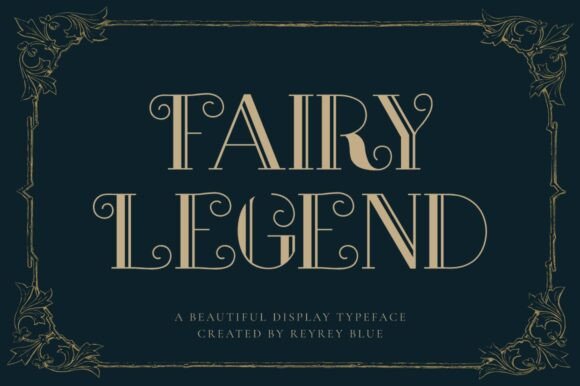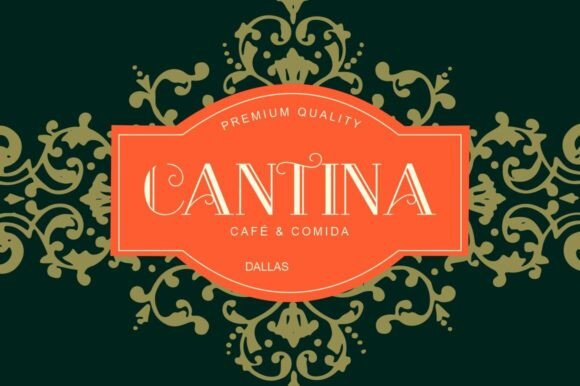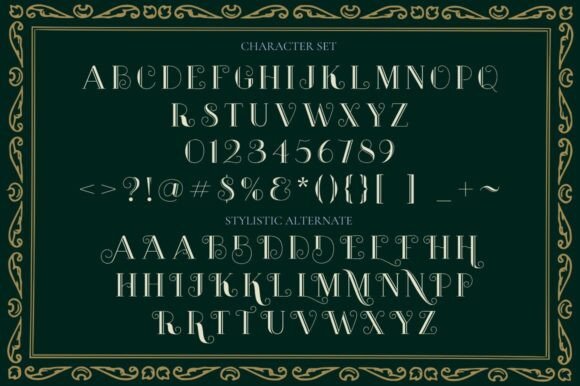
Step into the Magic of Fairy Legend Font
Have you ever sat in front of a blank canvas, struggling to find the perfect font to bring your creative vision to life? The blank page can be daunting, but what if you had a font that could transport you to a bygone era of glamour and sophistication? Welcome to Fairy Legend Font, a stunning retro font designed in the Art Deco style that’s sure to capture the essence of your project.
This enchanting font is inspired by the typography of the 1920s, and its unique charm makes it perfect for designers looking to add a touch of elegance to their work. Whether you’re creating a logo, headline, or invitation, Fairy Legend Font is sure to make your digital images stand out from the crowd.
Fairy Legend Font Key Features
- Unique Characteristics: The Fairy Legend Font features intricate, hand-drawn illustrations and ornate details, adding a touch of whimsy and fantasy to any design.
- Kerning and Ligatures: The font includes advanced kerning and ligature pairs, ensuring smooth and harmonious typography even in complex text layouts.
Fairy Legend Font Review
✨ I must say, I’m really impressed with the whimsical and dreamy quality of Fairy Legend Font. The delicate lines and subtle flourishes evoke a sense of enchantment and wonder, making it perfect for fantasy and fairy tale-inspired projects. The font is well-suited for children’s books, greeting cards, and other materials that require a touch of magic.
✨ Another thing I appreciate is the font’s versatility. It comes in a range of weights and styles, from light and airy to bold and dramatic, allowing designers to choose the perfect look for their project. The font also includes a range of swashes and alternates, adding an extra layer of personality and charm.
⚠️ One of the main limitations of Fairy Legend Font is its limited legibility at small font sizes. The delicate lines and intricate details can make it difficult to read at small sizes, which may be a challenge for designers working with limited space or on small-scale projects.
⚠️ Another limitation is the font’s lack of support for non-Latin languages. While it’s not uncommon for fonts to have limited language support, it’s still something to consider for designers working on international projects.
Overall, I’m really impressed with Fairy Legend Font. Its unique style and versatility make it a great choice for designers looking to add a touch of magic to their projects. While it has some limitations, I believe it’s well worth the investment for designers who want to create truly enchanting designs.
Tips for Getting the Most Out of Fairy Legend Font
To get the most out of Fairy Legend Font, consider the following tips:
- Use it sparingly to create a whimsical or magical atmosphere
- Pair it with other fonts to create a unique and eye-catching design
- Experiment with different font sizes and colors to create visual interest
Fairy Legend Font is commonly used in:
- Children’s book illustrations
- Wedding invitations and decorations